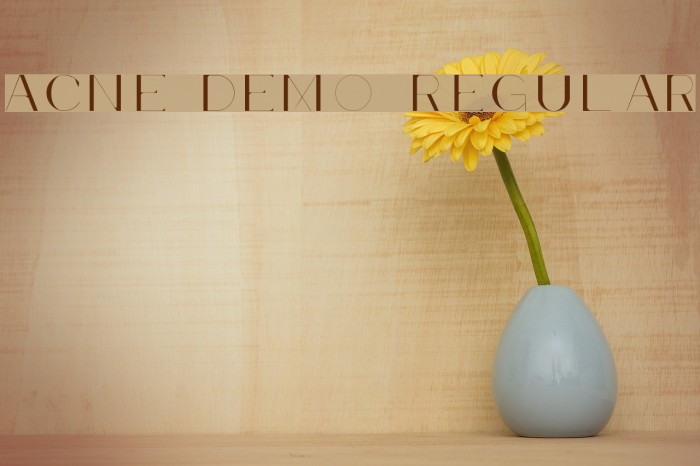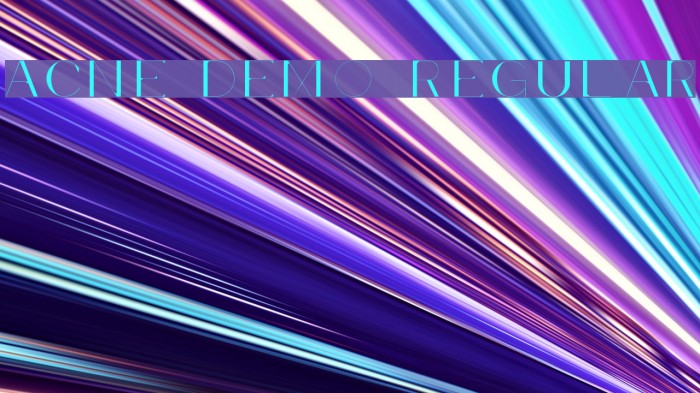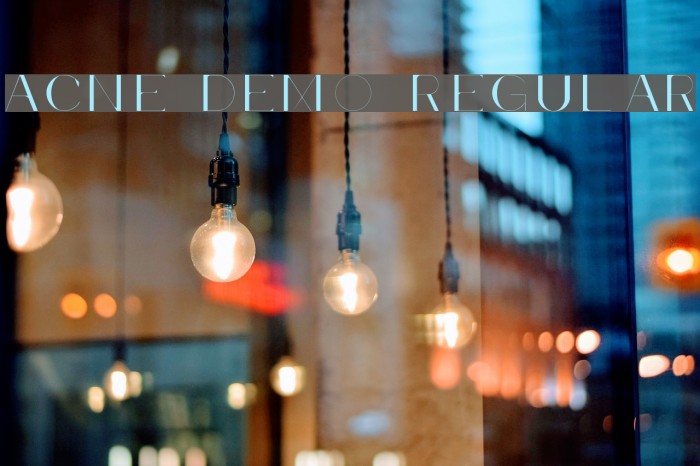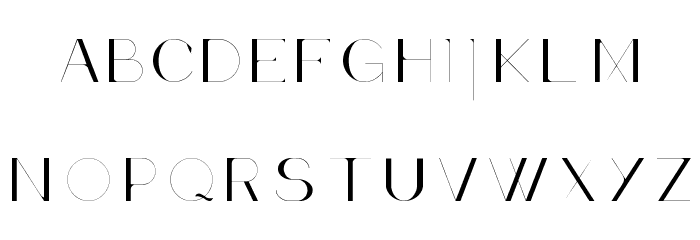
Acne Demo Regular Font
Acne Demo Regular Description
This font features a modern and minimalist design with a unique blend of geometric and linear elements. The uppercase letters exhibit a clean and sharp aesthetic, with some characters incorporating subtle curves and angles that add a distinctive flair. The lowercase letters maintain a consistent style, offering a harmonious balance between form and function. The numerals are straightforward and align well with the overall design, ensuring readability. Special characters are thoughtfully integrated, maintaining the font's sleek and contemporary appearance. This font's design is ideal for projects that require a modern and sophisticated touch.
A modern, minimalist font with geometric and linear elements from Uncategorized fonts.
- Proposed Projects: Ideal for branding, editorial design, and modern web interfaces.
- Use Case: Headlines, Logos, Branding